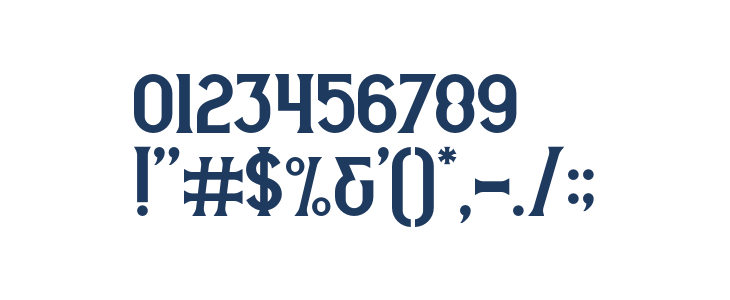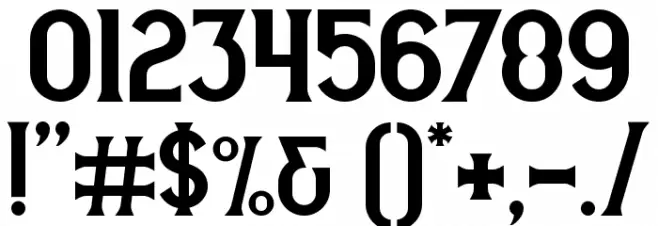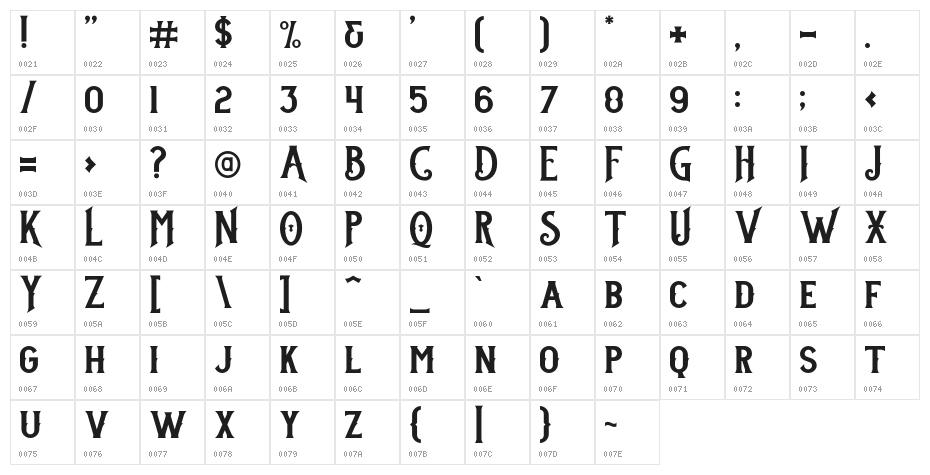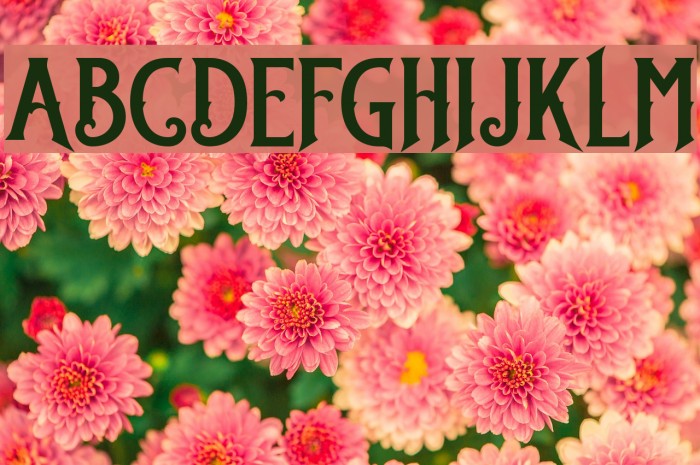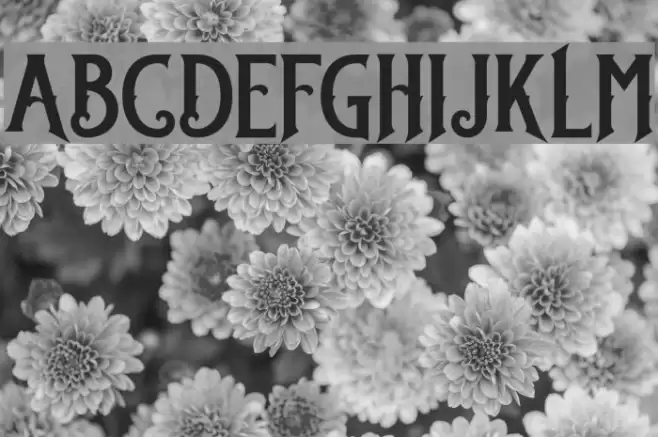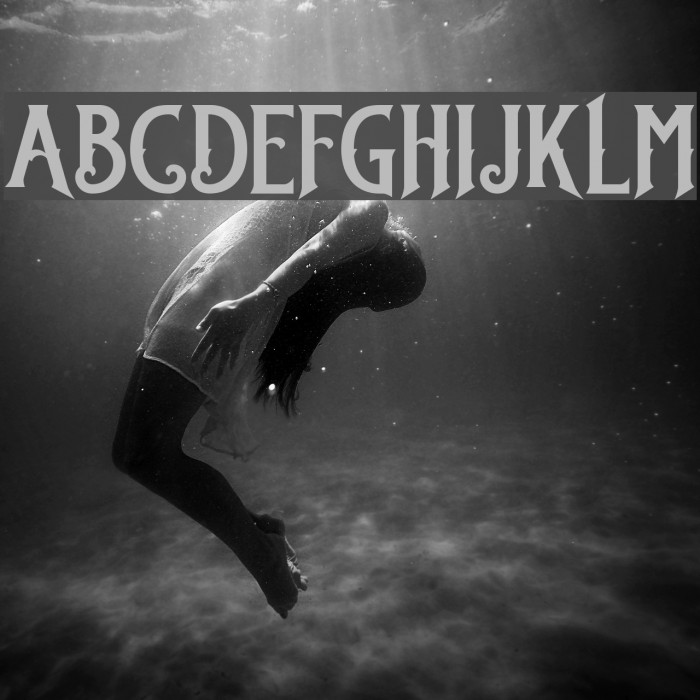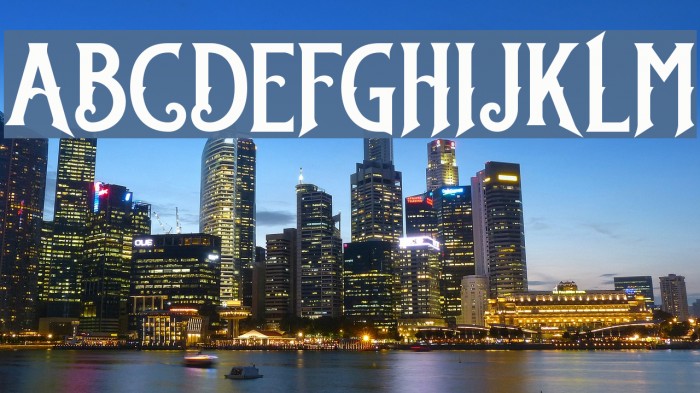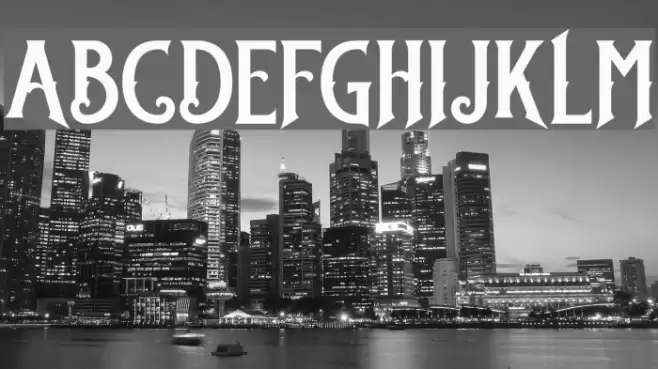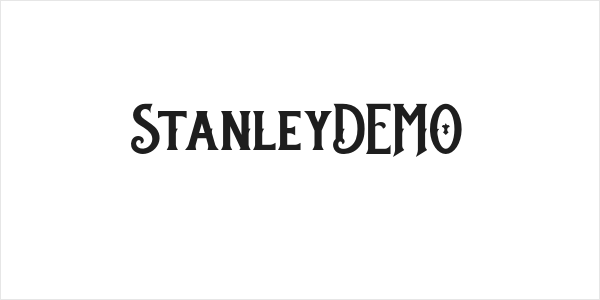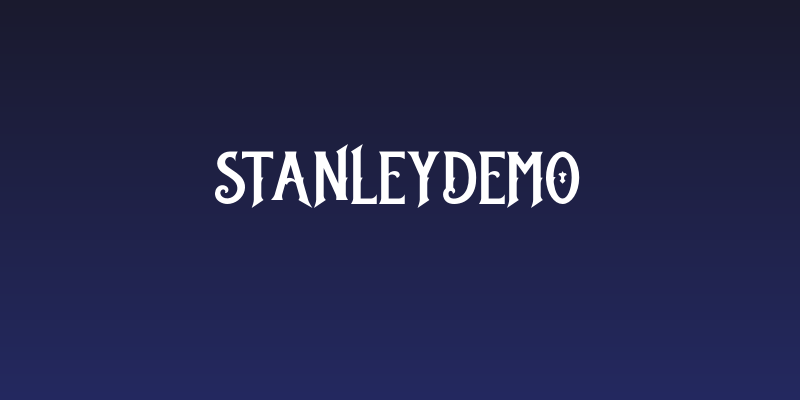
StanleyDEMO Font
StanleyDEMO Description
This font features a bold and striking design with a distinct decorative flair. The uppercase letters are characterized by sharp serifs and unique embellishments, such as the star-like cutouts in the 'O' and 'Q'. The lowercase letters maintain a consistent style, with a slightly condensed appearance and pronounced serifs. The numerals are bold and maintain the decorative theme, ensuring they stand out. Special characters are equally stylized, adding to the font's overall cohesive look. This font's design is reminiscent of vintage signage, combining classic elements with a modern twist.
| Proposed Projects | Ideal for vintage-themed posters, branding, logos, and signage that require a bold statement. |